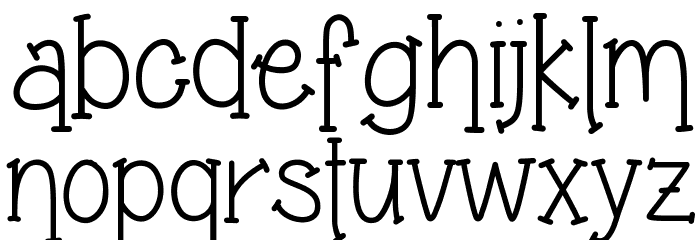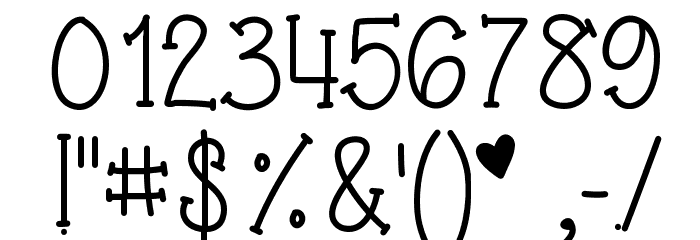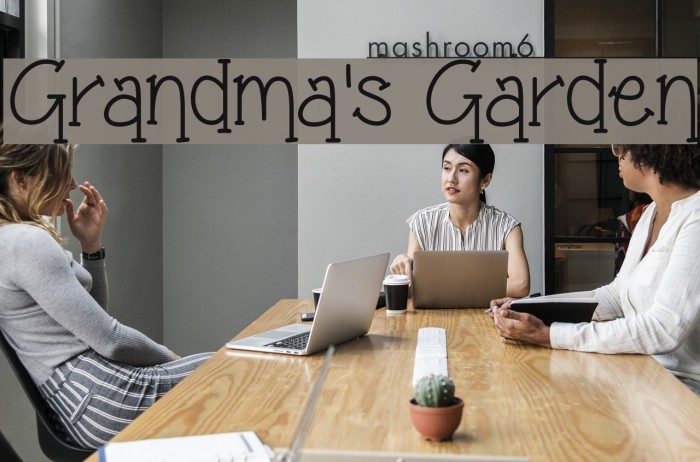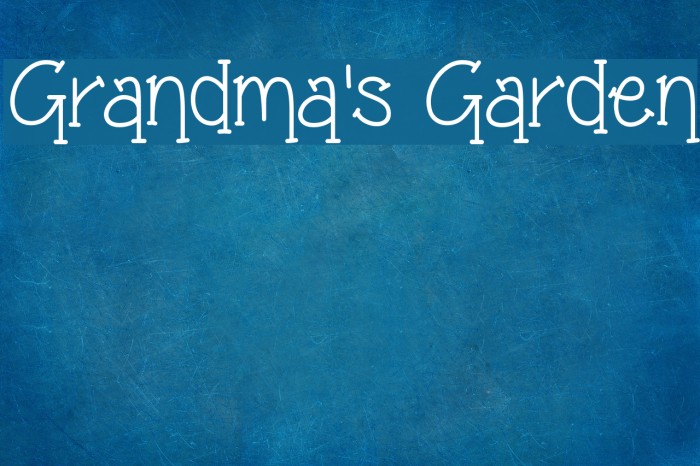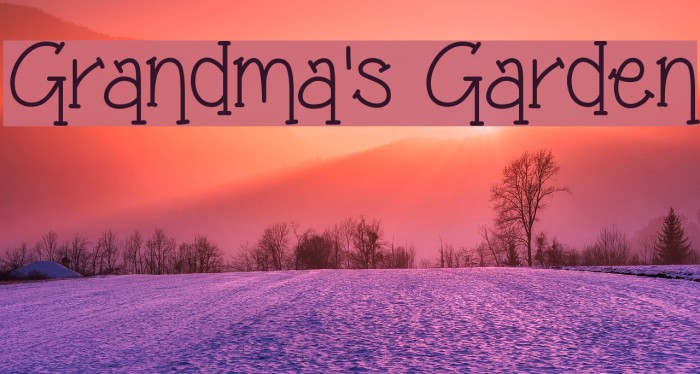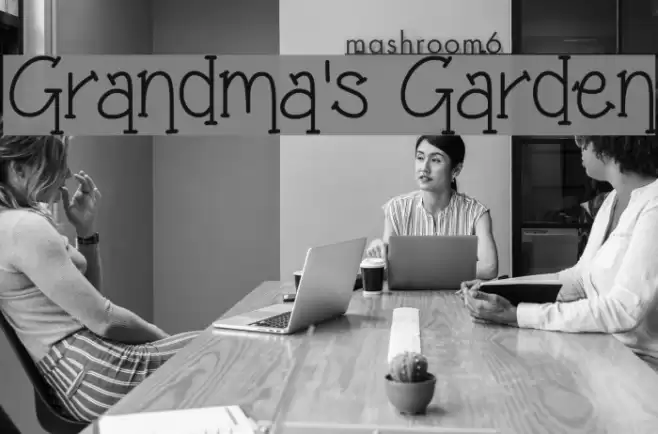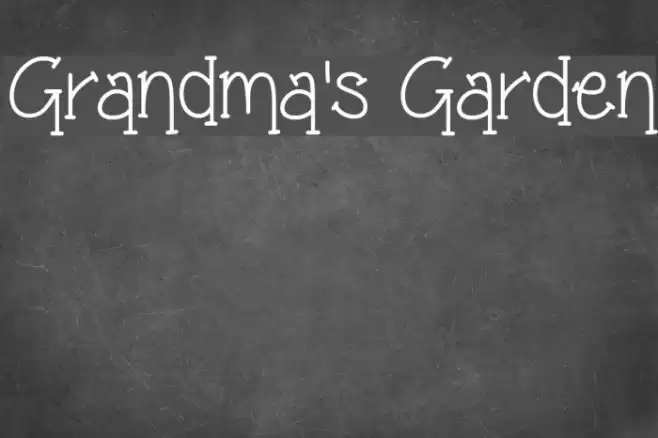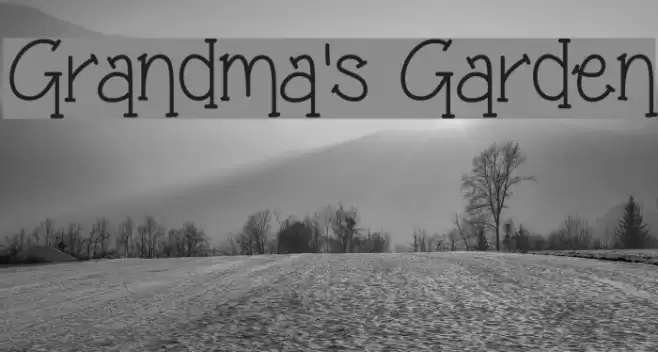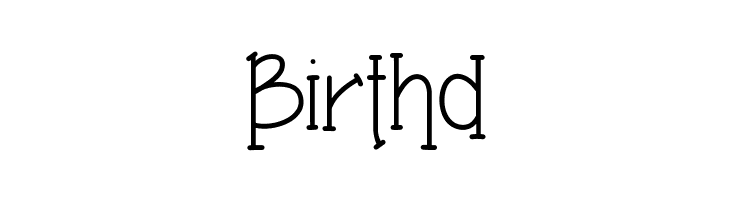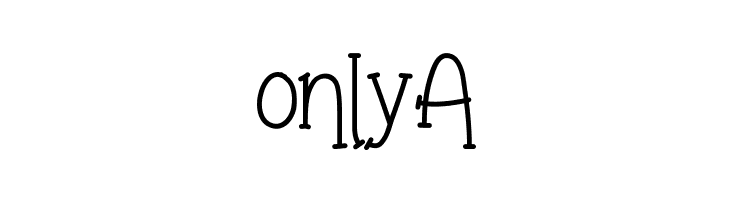
Grandma's Garden Font
This whimsical and playful font features a hand-drawn style with a touch of nostalgia. The characters are slightly irregular, giving them a charming, homemade feel. The uppercase letters are tall and narrow, with unique flourishes on the ends of the strokes, while the lowercase letters maintain a consistent, rounded appearance. Numbers and special characters follow the same playful aesthetic, making them perfect for creative projects. The font's overall design evokes a sense of warmth and friendliness, ideal for adding a personal touch to any design.
A whimsical, hand-drawn font with playful, nostalgic charm.
- Proposed Projects: Ideal for children's books, greeting cards, scrapbooking, and playful branding.